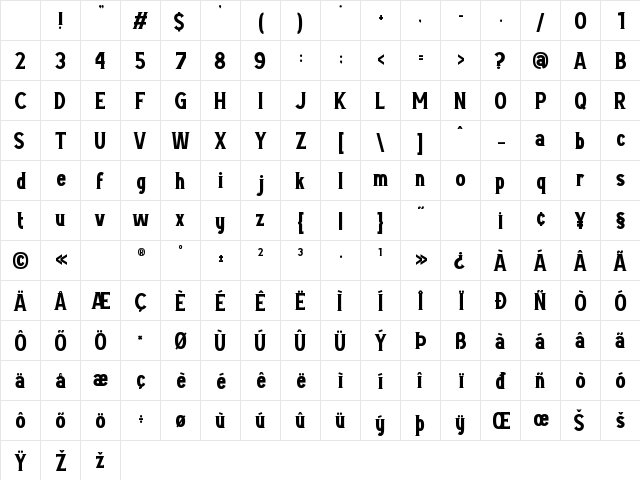
Complete Burgs Classic Regular glyph index. Displaying only characters natively supported by Burgs Classic Regular font.
Burgs Classic wears its vintage influences proudly, with letterforms that recall mid-century signage, classic packaging, and nostalgia-driven design.
Font Pairing: Combine Burgs Classic with a simple slab or neutral sans - period-accurate companions reinforce the vintage feel without competing for attention.
Pro Tip: Lean into Burgs Classic's period character by pairing it with aged paper textures, muted colour palettes, and vintage illustration styles.